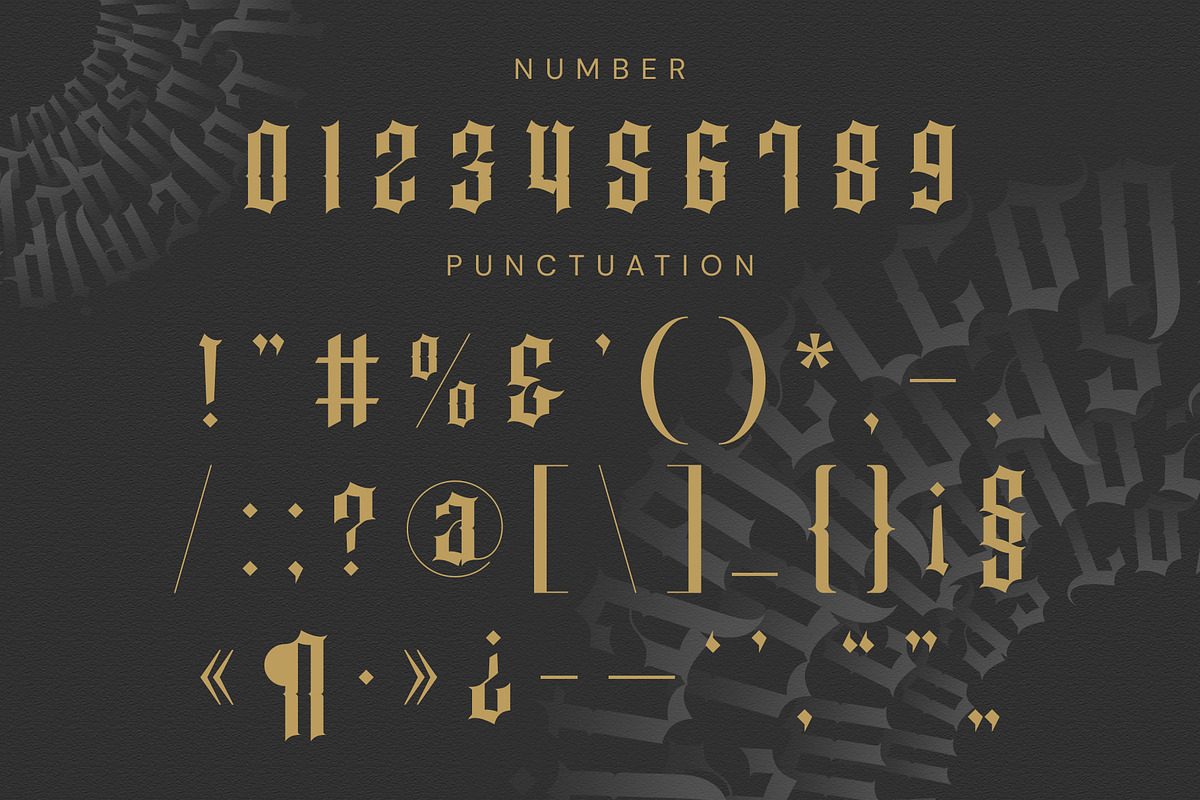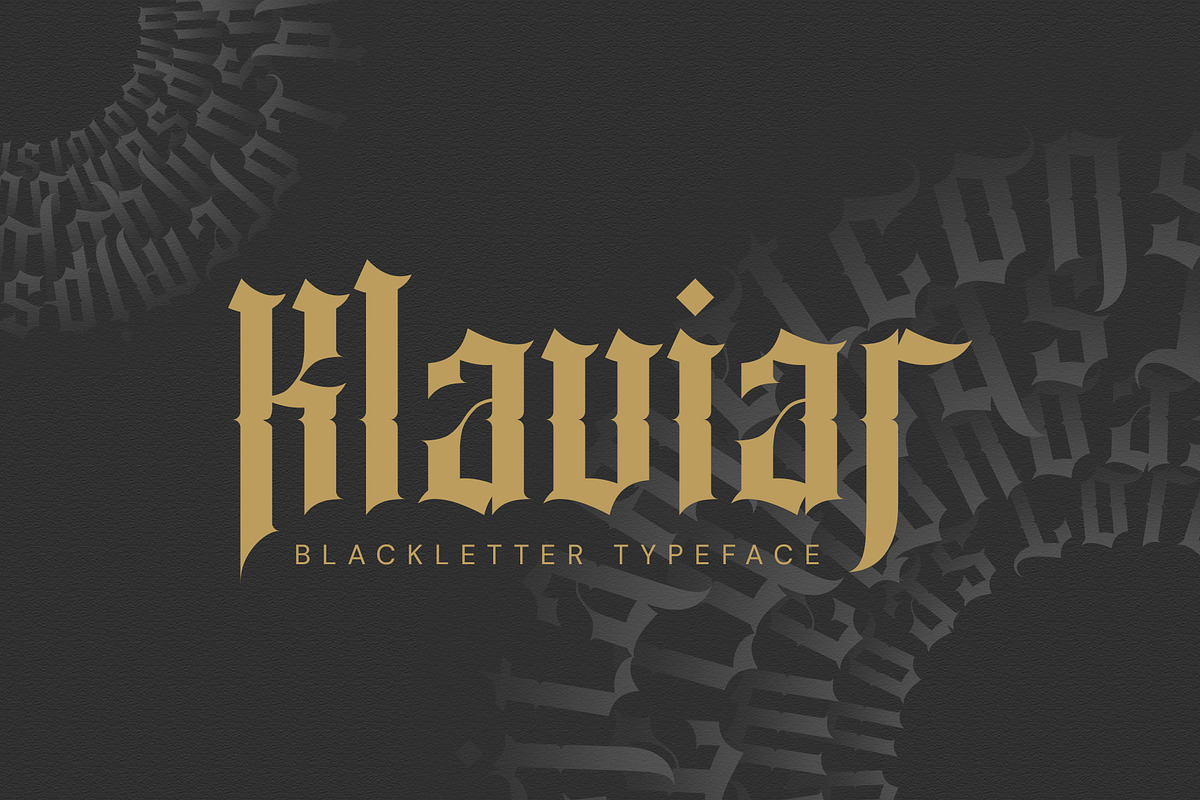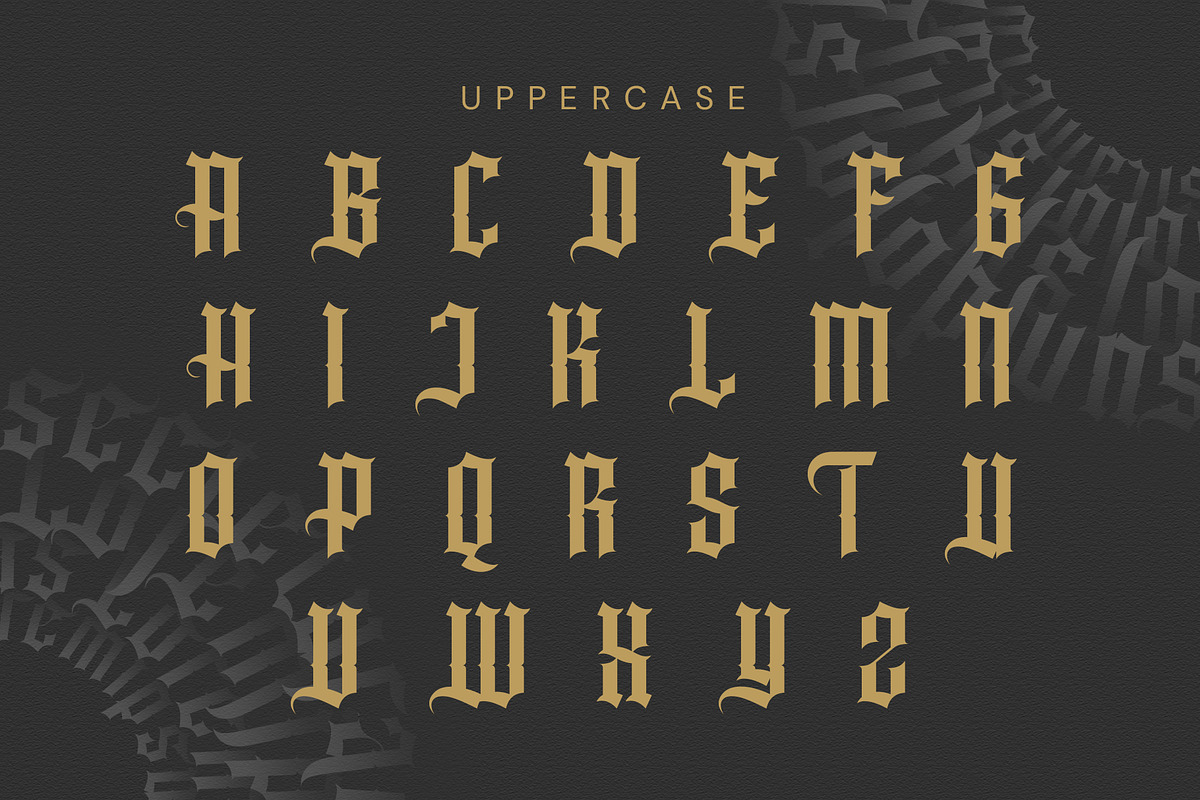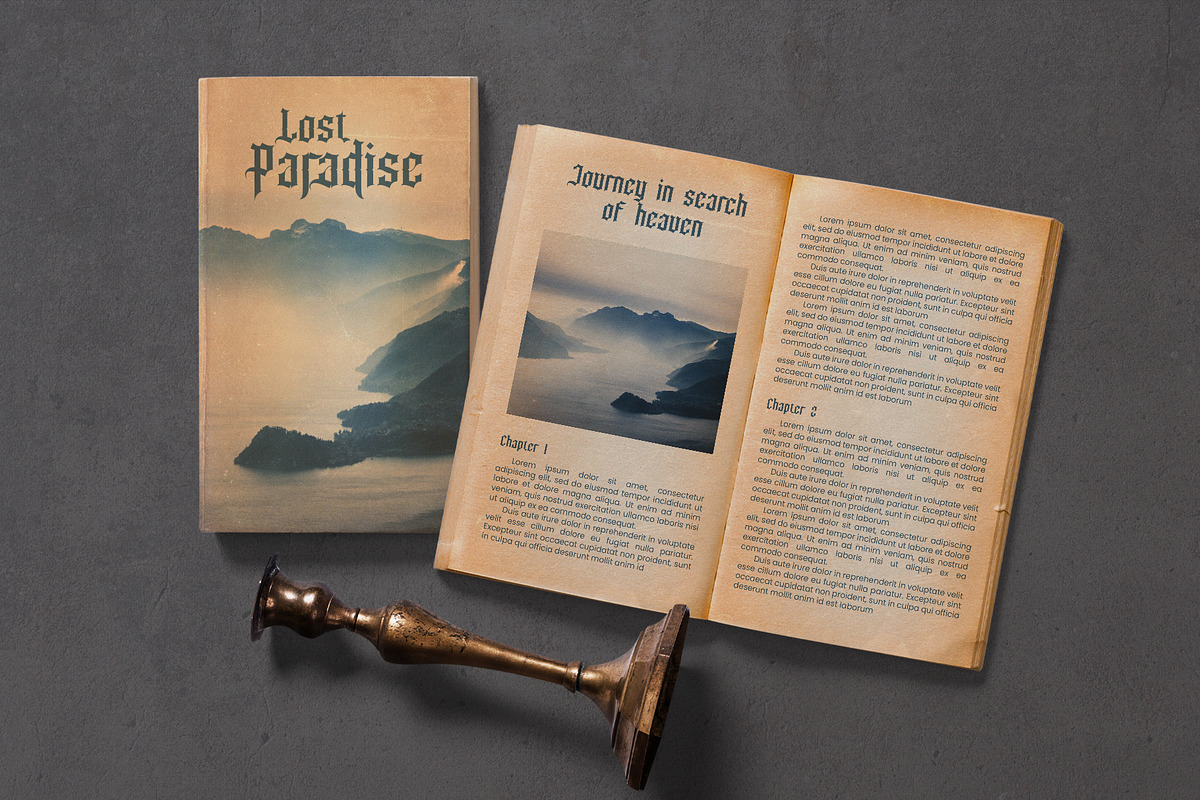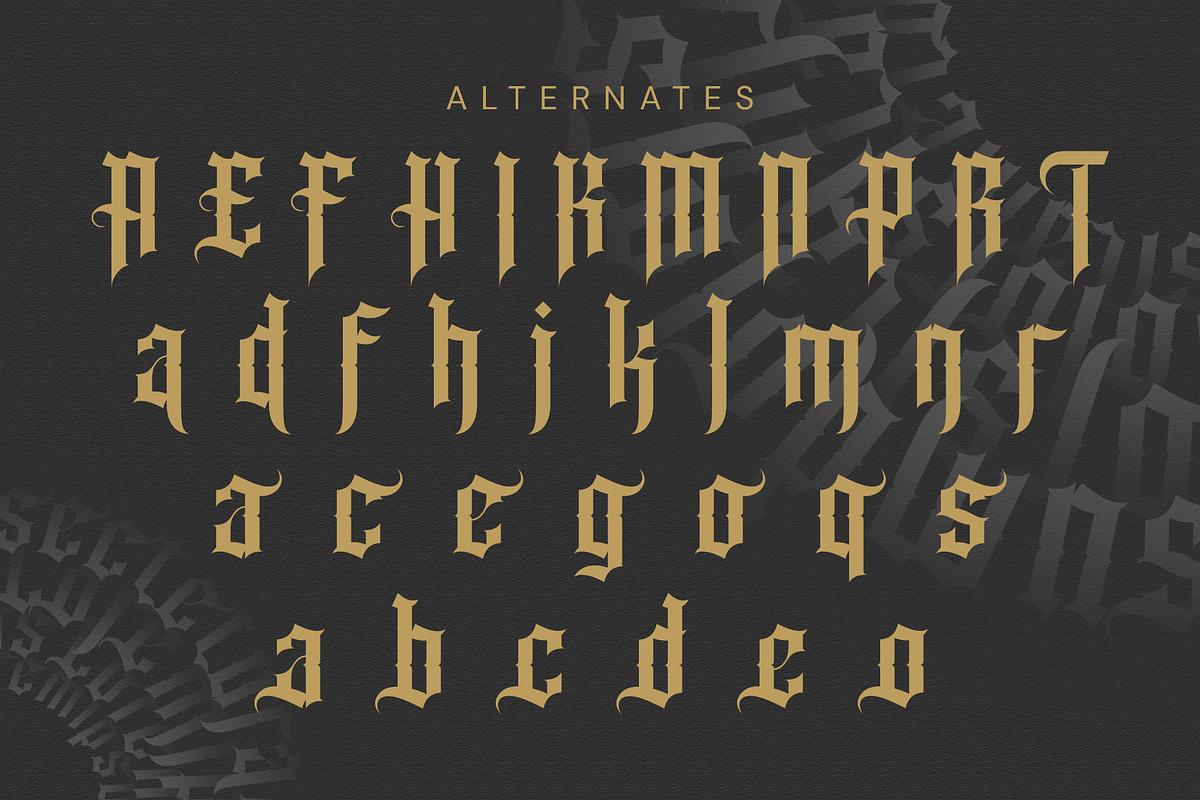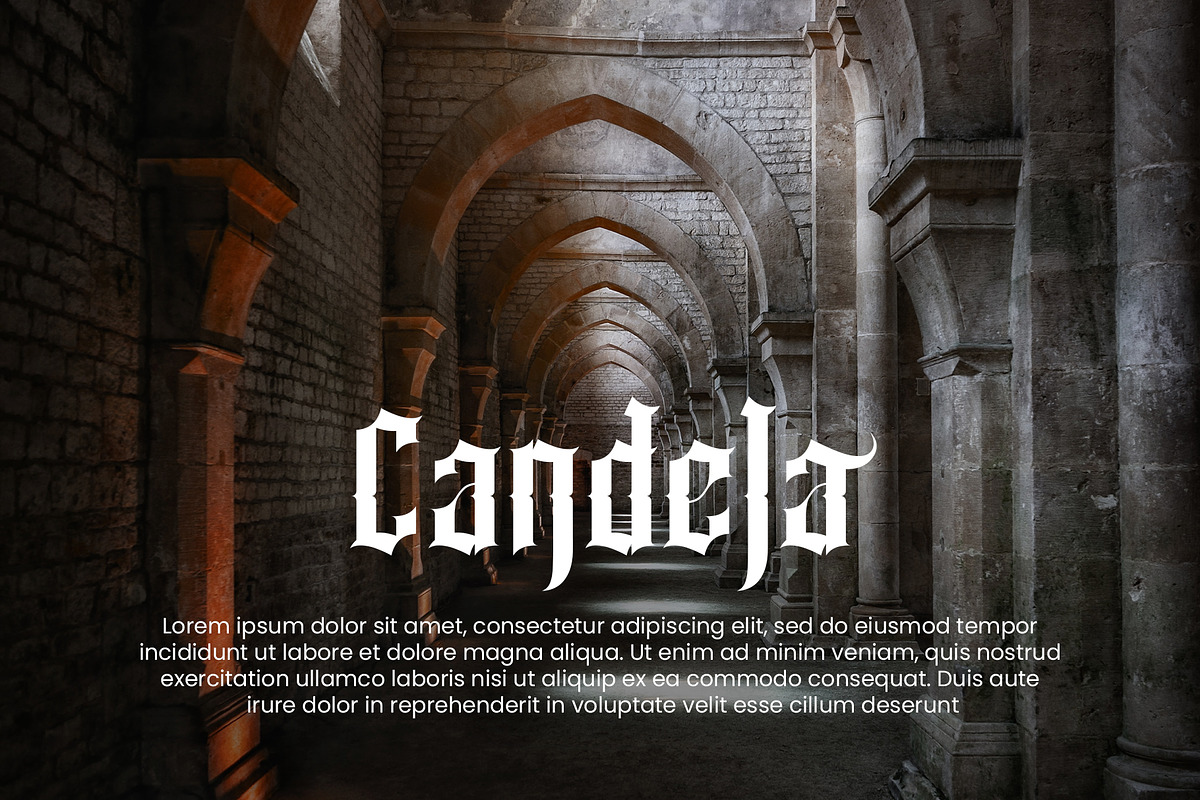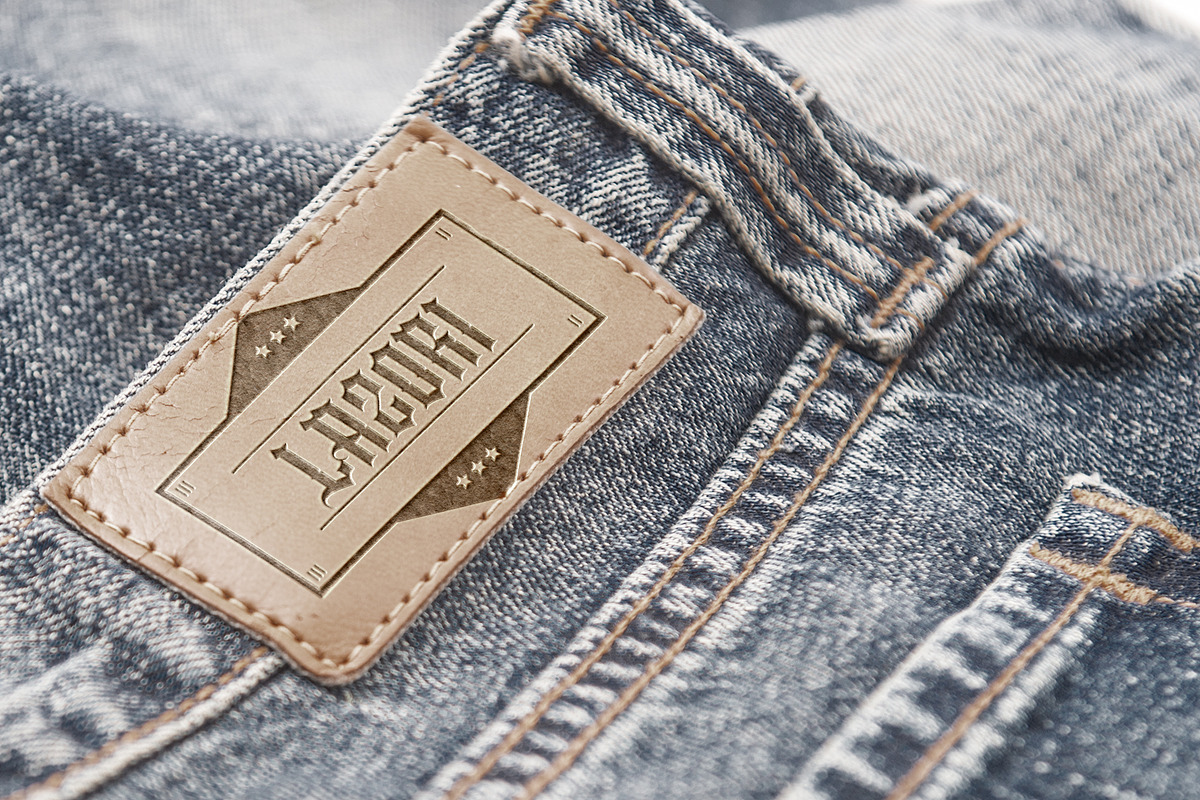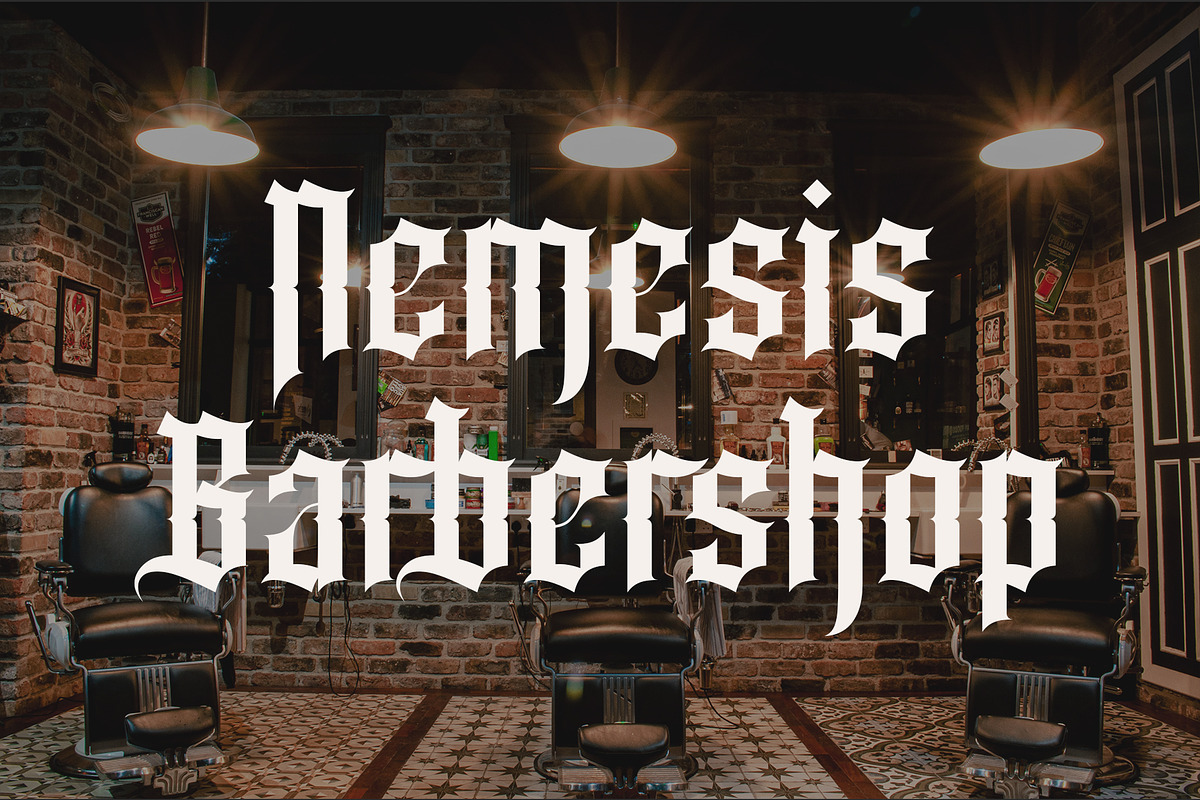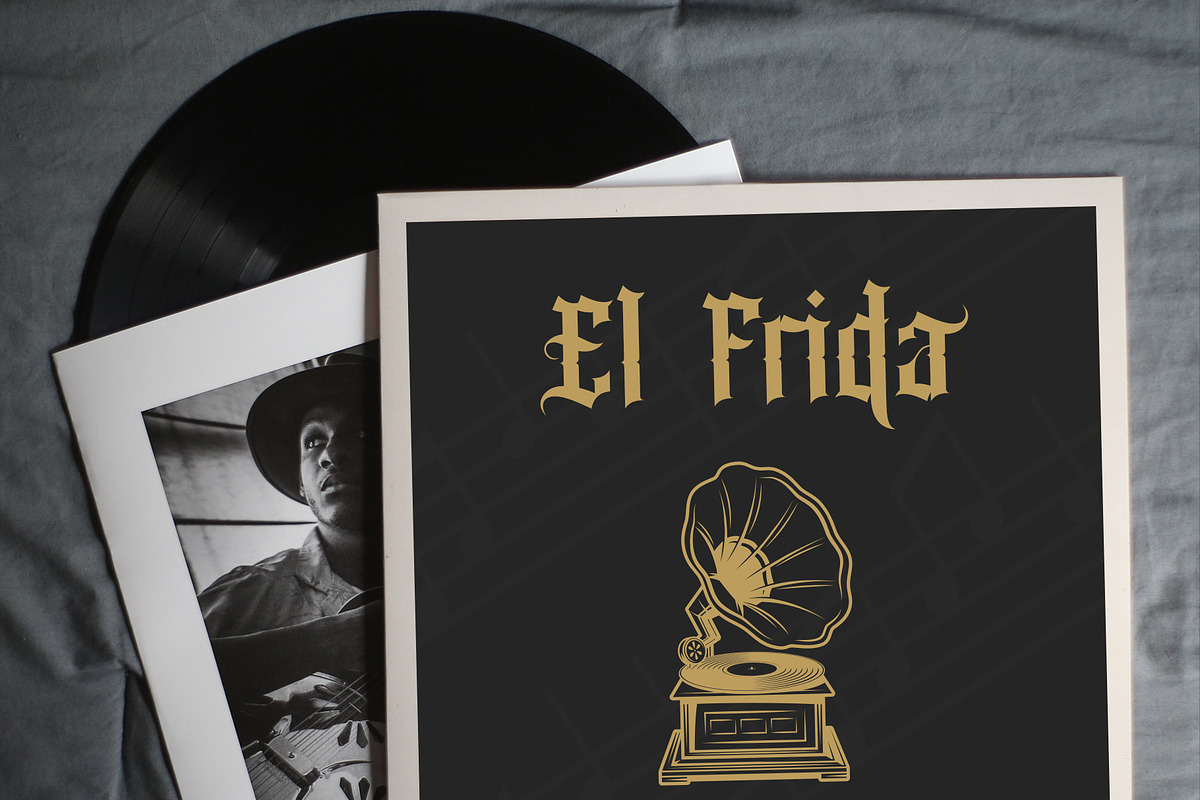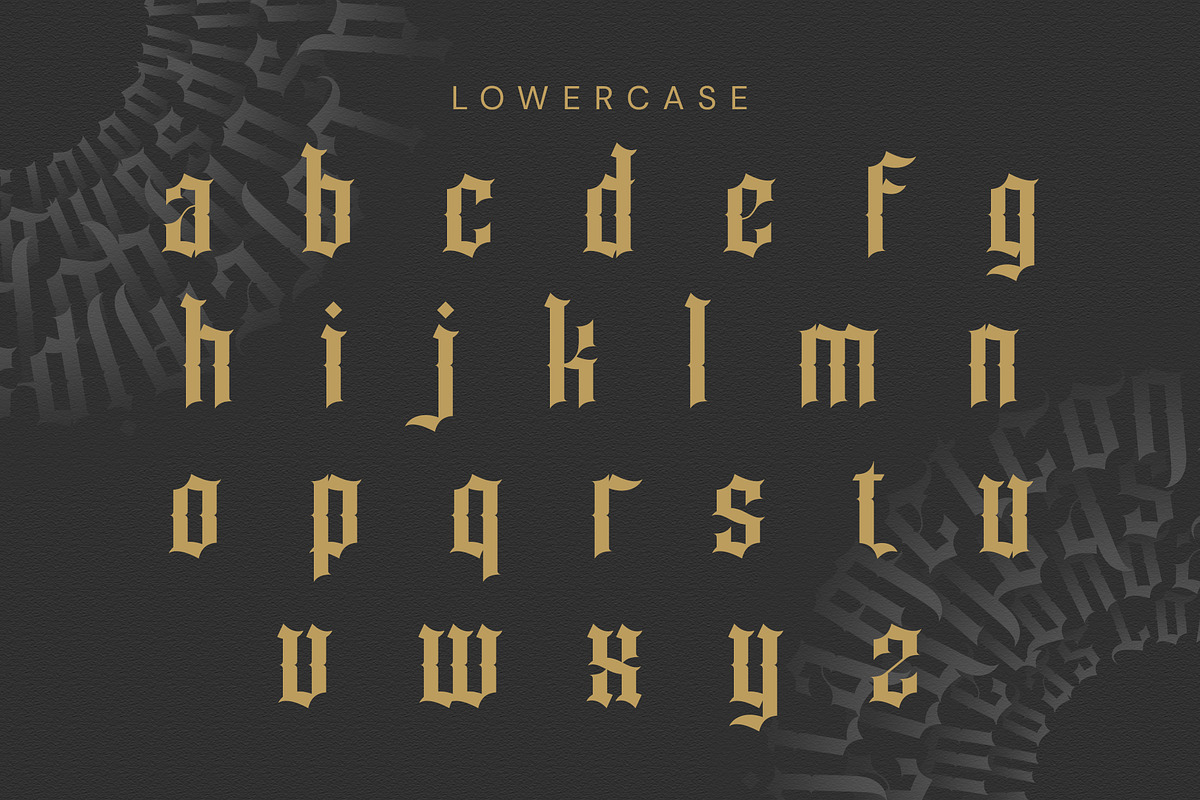
Klaviar Blackletter Font
Klaviar is an incredibly authentic and daring blackletter font. Add this font to your favorite creative ideas and notice how it makes them stand out!Klaviar Blackletter is an incredibly authentic and daring blackletter font. Its stylish alternations and ligatures make this font the perfect partner for any project.